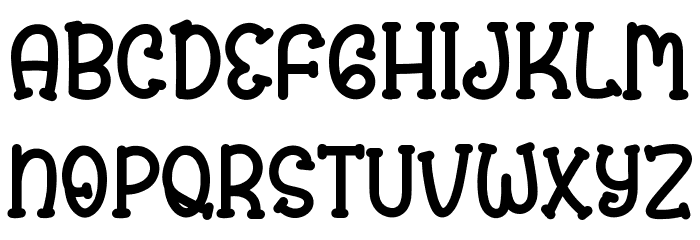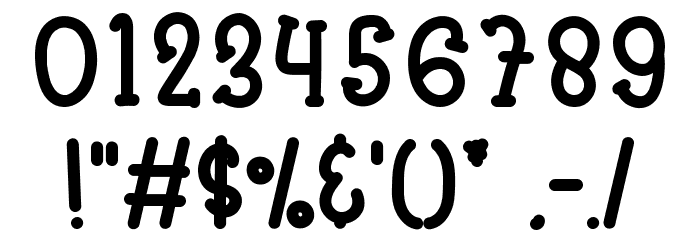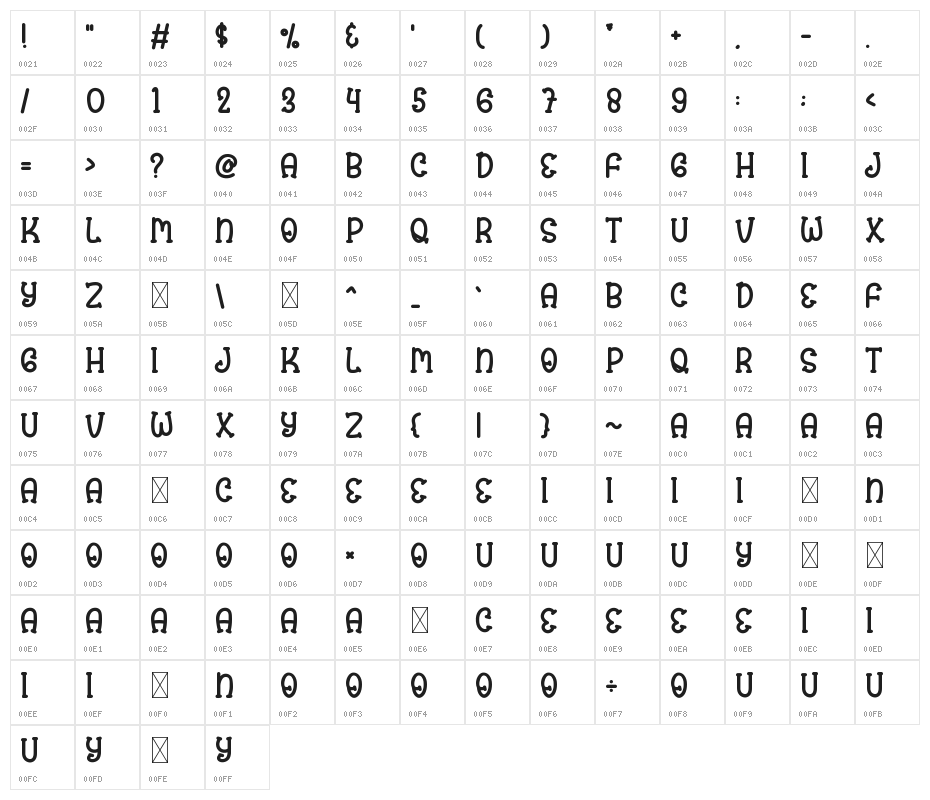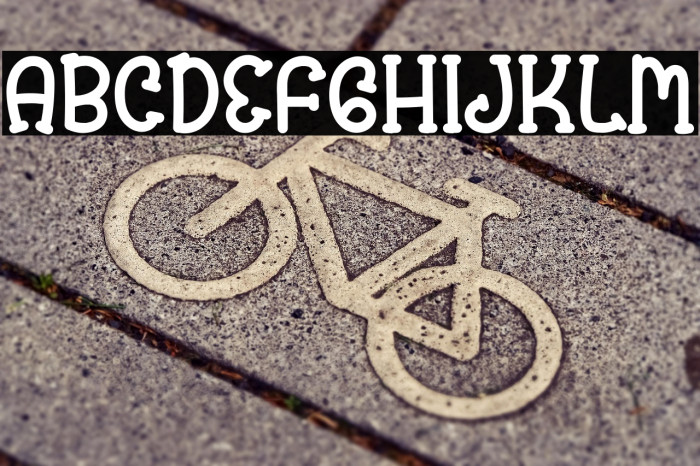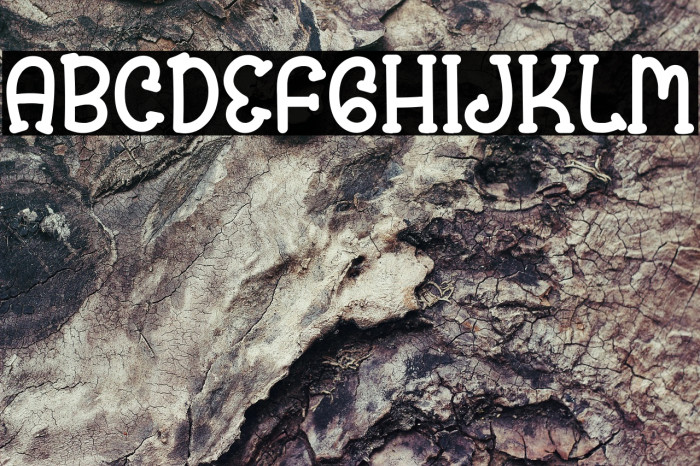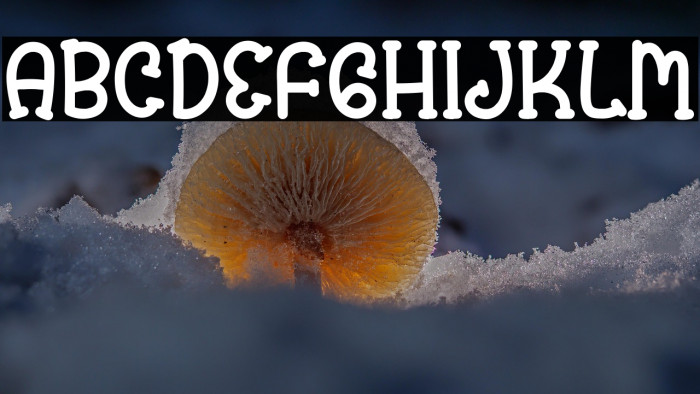
Prince Baby Font
This font features a playful and whimsical design, characterized by its rounded and bold letterforms. The characters have a consistent thickness, giving them a uniform appearance. The font includes both uppercase and lowercase letters, numbers, and a variety of special characters. Its style is reminiscent of a handwritten or cartoonish aesthetic, making it suitable for projects that require a fun and informal touch. The rounded edges and consistent stroke width contribute to its friendly and approachable look.
A playful, rounded font with a whimsical, handwritten style.
- Font: Prince Baby
- Proposed Projects: Ideal for children's books, playful branding, party invitations, and casual posters.
- Overall Style: Playful, Whimsical